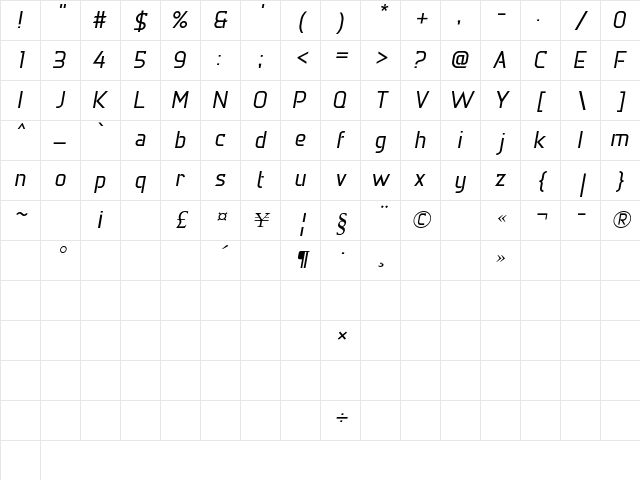
DERNIER is a composed and adaptable typeface that performs quietly and consistently across a wide range of design contexts. The slanted form adds forward momentum and visual energy.